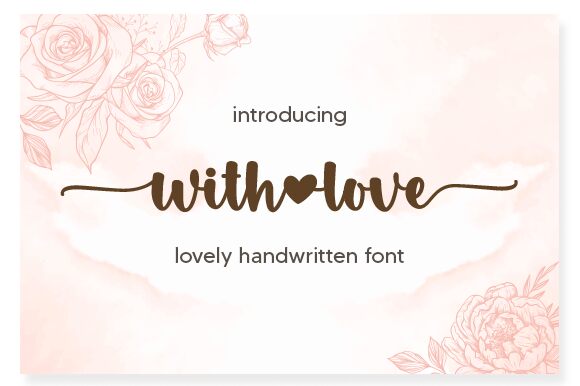
With Love, a beautifully crafted font by Graphix Line Studio, is the perfect choice for projects that require a touch of elegance and charm. Its lovely handwritten style creates an intimate and personal feel, while its bold weight commands attention. With Love is versatile enough to be used in a variety of projects, from wedding invitations and love letters to product packaging and social media graphics. Whether you're aiming for a romantic or playful vibe, this font will add the perfect finishing touch to your project. Let With Love take your design to the next level with its undeniable charm and grace.